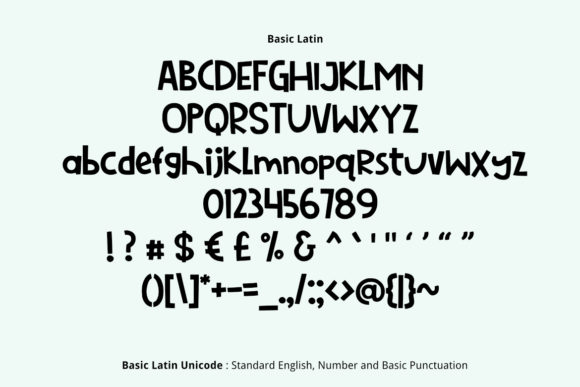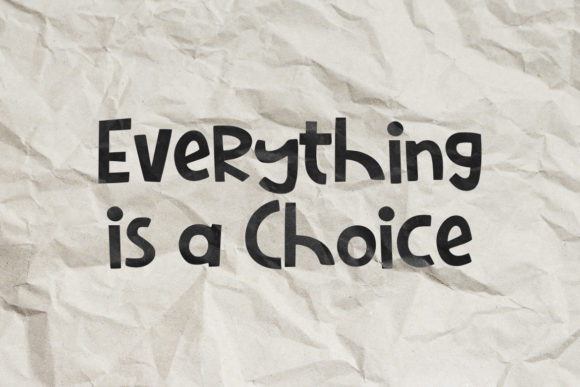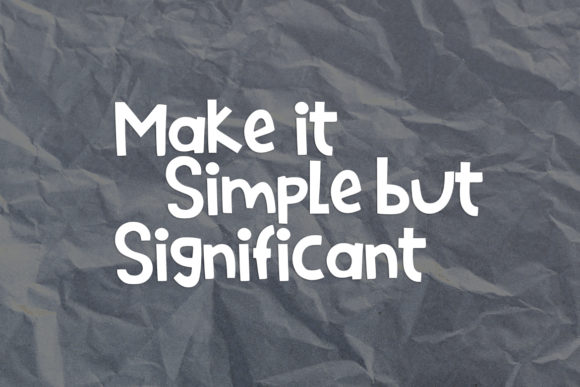
The Perfect Blend of Quirkiness and Elegance: Alpukat Font
Enter Alpukat Font, a stunning display font that’s equal parts quirky and elegant. Its unique character makes it perfect for designers who want to add a touch of personality to their work. Whether you’re creating a logo, a poster, or a social media graphic, Alpukat Font is sure to make your design stand out from the crowd. With its versatility and charm, it’s a valuable addition to any designer’s toolkit, and a must-have for anyone looking to take their designs to the next level.
Alpukat Font Key Features
- Font Family: Alpukat Font is a sans-serif font family designed for digital use.
- Unique Characteristics: Alpukat Font features a clean and modern design, with a unique blend of geometric and organic elements, making it ideal for digital products and branding materials.
- Font Styles: The Alpukat Font family includes multiple font styles, including Regular, Bold, Italic, and Bold Italic, offering users flexibility in their design choices.
Review of Alpukat Font
First impressions of the Alpukat Font are quite positive. The font has a unique, hand-drawn feel that works well for titles and headings. ✨ The irregular lines and subtle imperfections give it a sense of character that can make text stand out. ✨ The font also comes in a range of weights, from light to bold, which allows for a good deal of flexibility in its use.
However, there are some limitations to consider. ⚠️ One of the main issues is that the font may not be suitable for large blocks of text, as the irregularities in the lines can make it difficult to read. ⚠️ Additionally, the font may not be the best choice for situations where high legibility is required, such as in technical documentation or financial reports.
The Alpukat Font is a creative and unique choice that works well for titles, headings, and other decorative text. While it may not be the best choice for every situation, it can be a great addition to a designer’s toolkit for projects that require a touch of personality.
- Unique, hand-drawn feel
- Range of weights (light to bold)
- Works well for titles and headings
- May not be suitable for large blocks of text
- May not be the best choice for high legibility situations
Alpukat Font is a unique and creative font that can add a personal touch to your designs. Some common use cases include:
- Food and beverage packaging
Remember to use Alpukat Font in moderation and balance it with other design elements to avoid overwhelming the viewer.